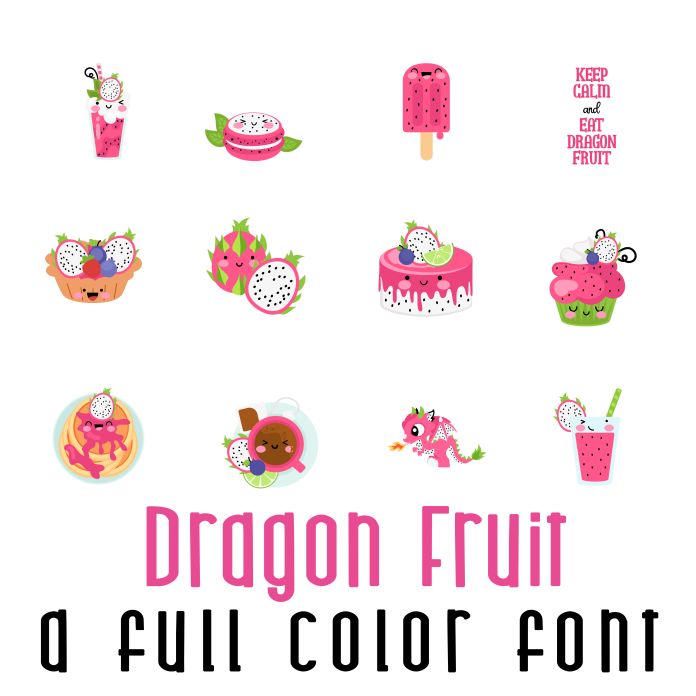
This fun full color font features 38 images with 26 fun Dragon Fruit Treats and 12 Dragon Fruit Dragons! Perfect for cards, crafts, parties, gifts, decor, planner stickers, classrooms, scrapbook pages and more! Glpyhs are A-Z, 0-9, !, @ for 38 images.